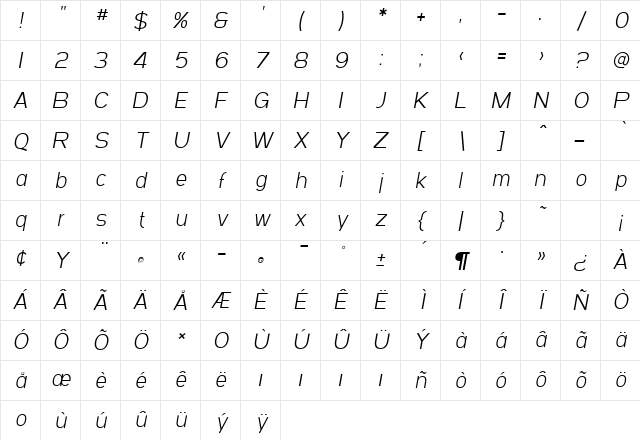
SF Arborcrest Light Oblique
Complete SF Arborcrest Light Oblique glyph index. Displaying only characters natively supported by SF Arborcrest Light Oblique font.
Design Context for SF Arborcrest Light
SF Arborcrest Light is a composed and adaptable typeface that performs quietly and consistently across a wide range of design contexts. The slanted form adds forward momentum and visual energy. Its slender proportions lend an understated elegance to any composition.
Pro Tip: Use SF Arborcrest Light for emphasis, pull quotes, and subheadings where its slanted energy can add rhythm to the layout.